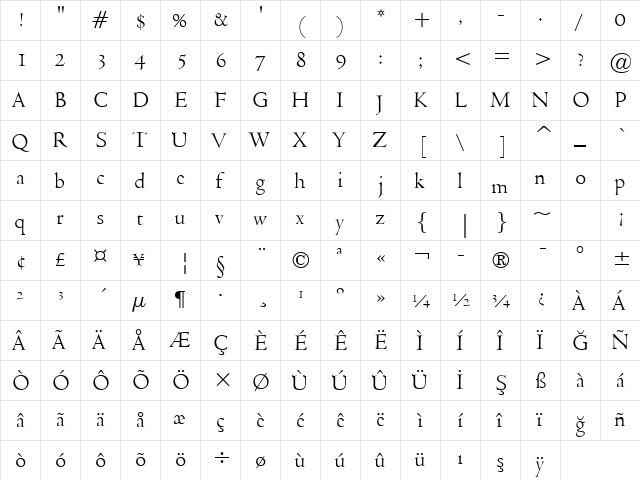
Turkish Venetian 301 BT Regular
Turkish Venetian 301 BT takes a measured approach to typography — its balanced proportions and neutral character make it a reliable workhorse for both digital and print work.